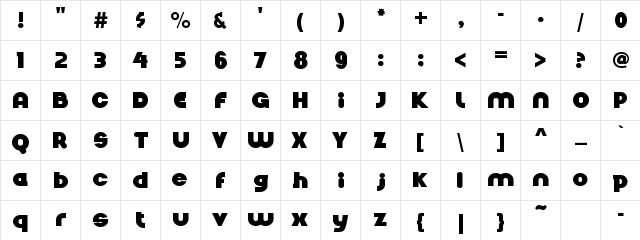
Nickel Bumpy created using FontCreator 6.5 from High-Logic.com Regular
Design Context for Nickel Bumpy created using FontCreator 6.5 from High-Logic.com Typeface
Nickel Bumpy created using FontCreator 6.5 from High-Logic.com takes a measured approach to typography — its balanced proportions and neutral character make it a reliable workhorse for both digital and print work.